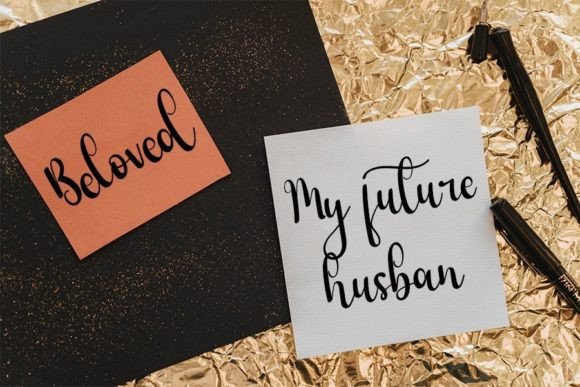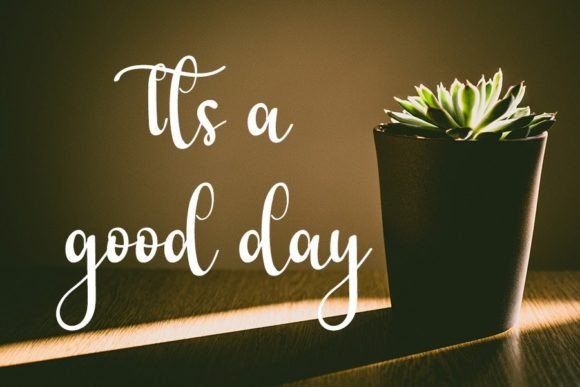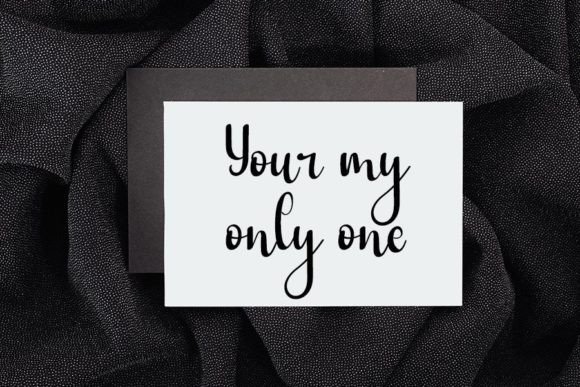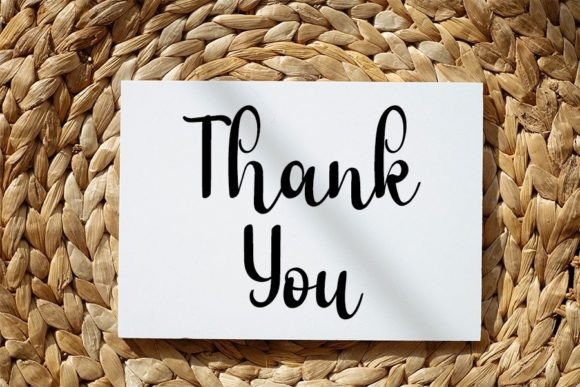
Casual Script Font
About Casual Script Font
Casual Script is a warm and inviting handwritten font, thoughtfully crafted to earn its place as a cherished favorite. Balancing a touch of classic calligraphic influence with a contemporary and fresh feel, this font seamlessly marries timeless elegance with a modern aesthetic.
At the heart of Casual Script’s appeal is its friendly and approachable nature. The carefully designed letterforms exude a sense of warmth and personal touch, making it an excellent choice for a variety of creative projects. The font manages to retain its classy calligraphic roots while simultaneously embracing a contemporary vibe, making it a versatile option for both traditional and modern design applications.
This font is particularly well-suited for projects that require a handwritten touch, adding a genuine and authentic feel to your creations. Whether used in invitations, greeting cards, branding materials, or any other design endeavor, Casual Script brings a unique charm that resonates with a wide audience.
The balance between classic and contemporary elements makes Casual Script a reliable choice for those seeking a font that can seamlessly adapt to diverse design needs. Its friendly demeanor makes it suitable for a range of contexts, from personal projects to commercial applications, ensuring that it remains a true favorite among designers and enthusiasts alike.
In conclusion, Casual Script is more than just a font; it’s a design companion that effortlessly combines the timeless with the modern. Its friendly handwritten style, along with the careful infusion of classic calligraphic influences, makes it a valuable asset for any creative project. Embrace Casual Script as a versatile and beloved font that adds a touch of class and contemporary flair to your designs.